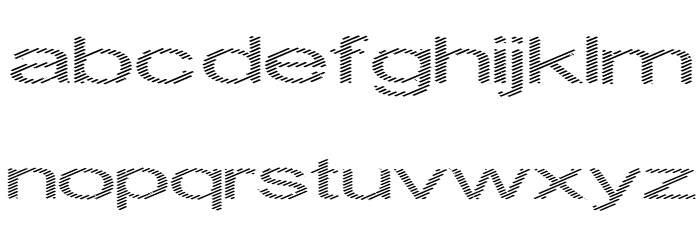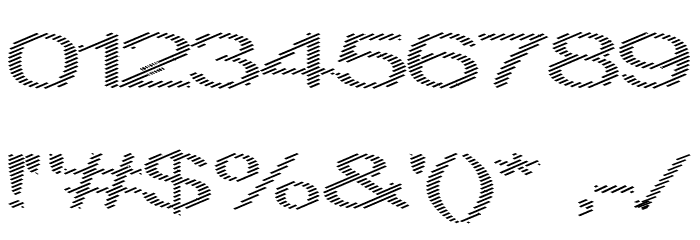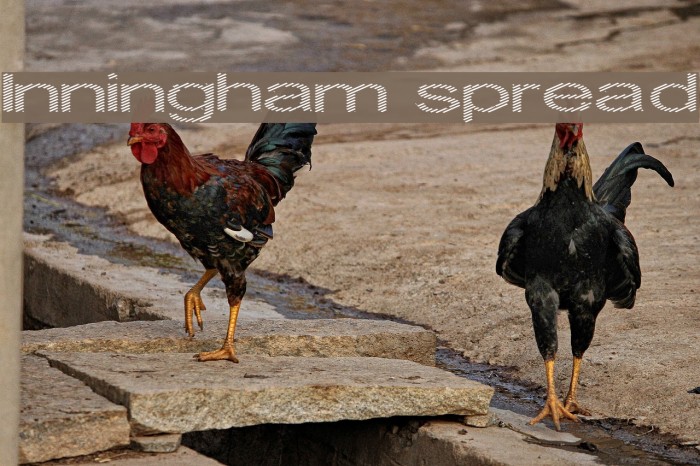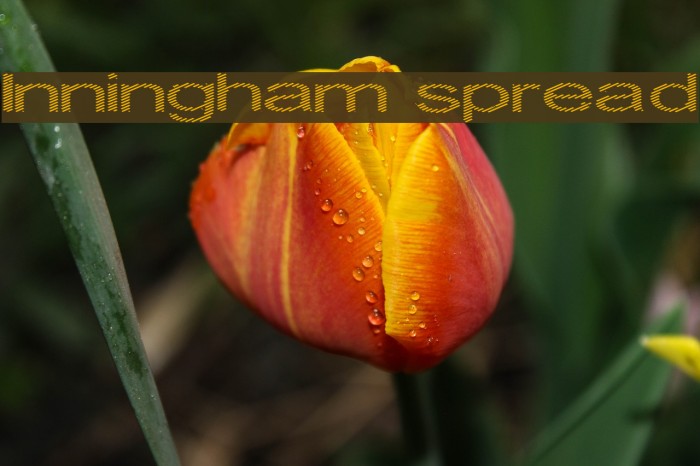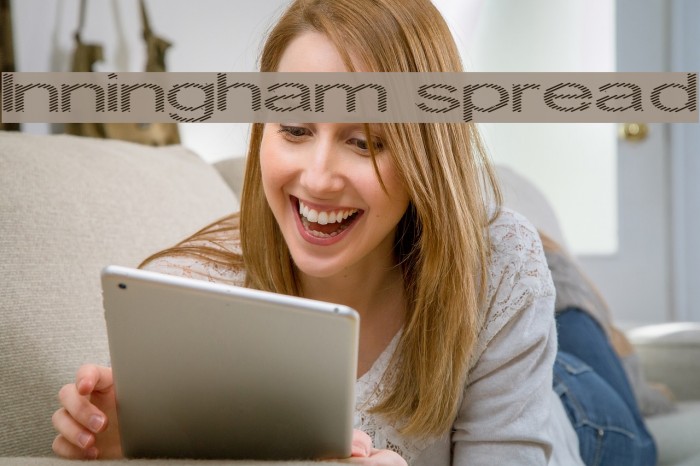
Inningham spread Font
This font features a unique, textured design with diagonal lines running through each character, creating a dynamic and modern appearance. The uppercase and lowercase letters maintain a consistent style, with clean, geometric shapes that are both bold and eye-catching. The numerals and special characters follow the same pattern, ensuring a cohesive look across all text elements. This font's distinctive style makes it ideal for creative projects that require a standout visual element.
A modern, textured font with diagonal lines and geometric shapes.
- Proposed Projects: Ideal for branding, posters, and creative digital designs that need a bold, modern touch.